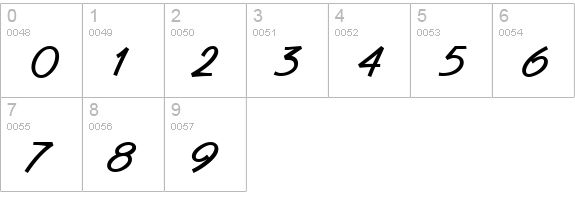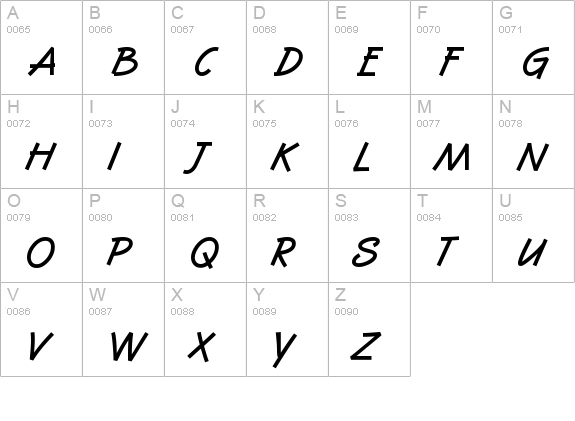
SuccotashHmkBlack Font Details
SuccotashHmkBlack font is a bold and striking typeface that exudes modernity and sophistication. Its strong and clean lines make it perfect for creating eye-catching designs that demand attention. This font is versatile and can be used for a variety of projects, from branding to editorial design. The best part is that SuccotashHmkBlack font is completely free to download at FontsMarket.com. This means you can access this high-quality font without any cost, making it a valuable addition to your font collection. Don't miss out on the opportunity to enhance your designs with this stylish and impactful typeface. Download SuccotashHmkBlack font today and elevate your projects to the next level.